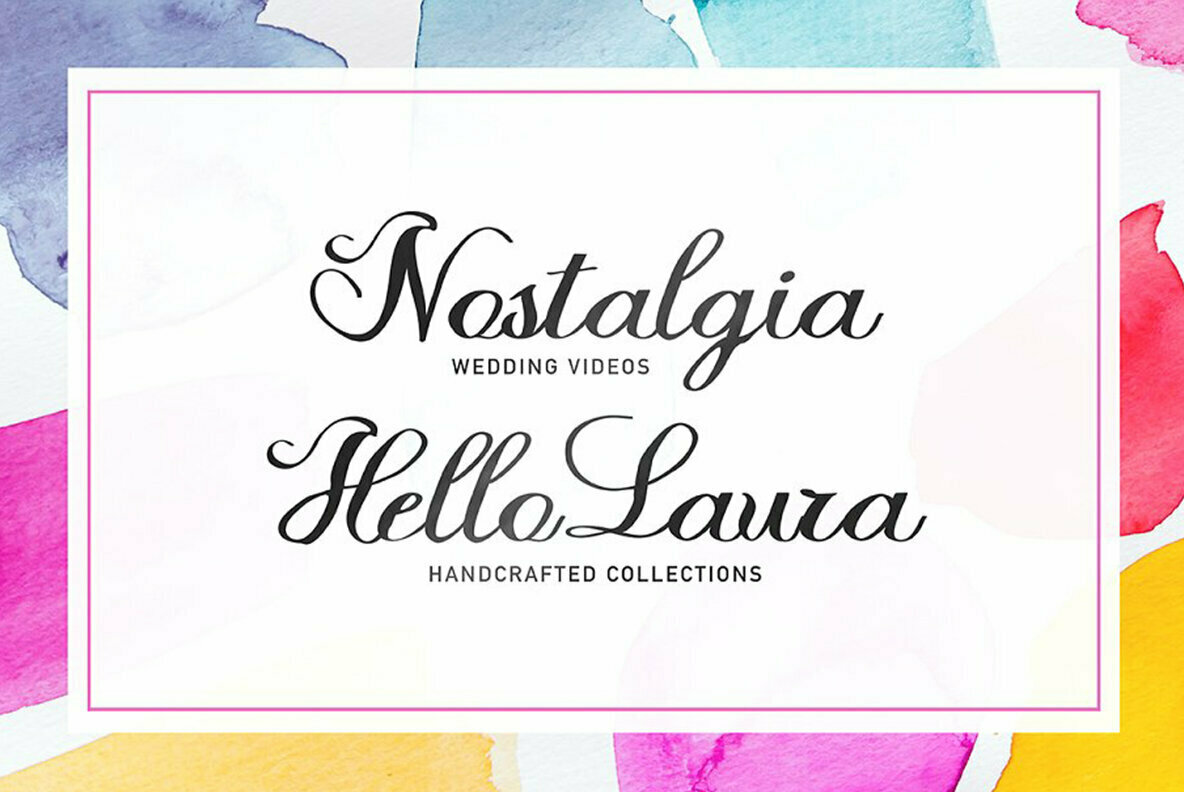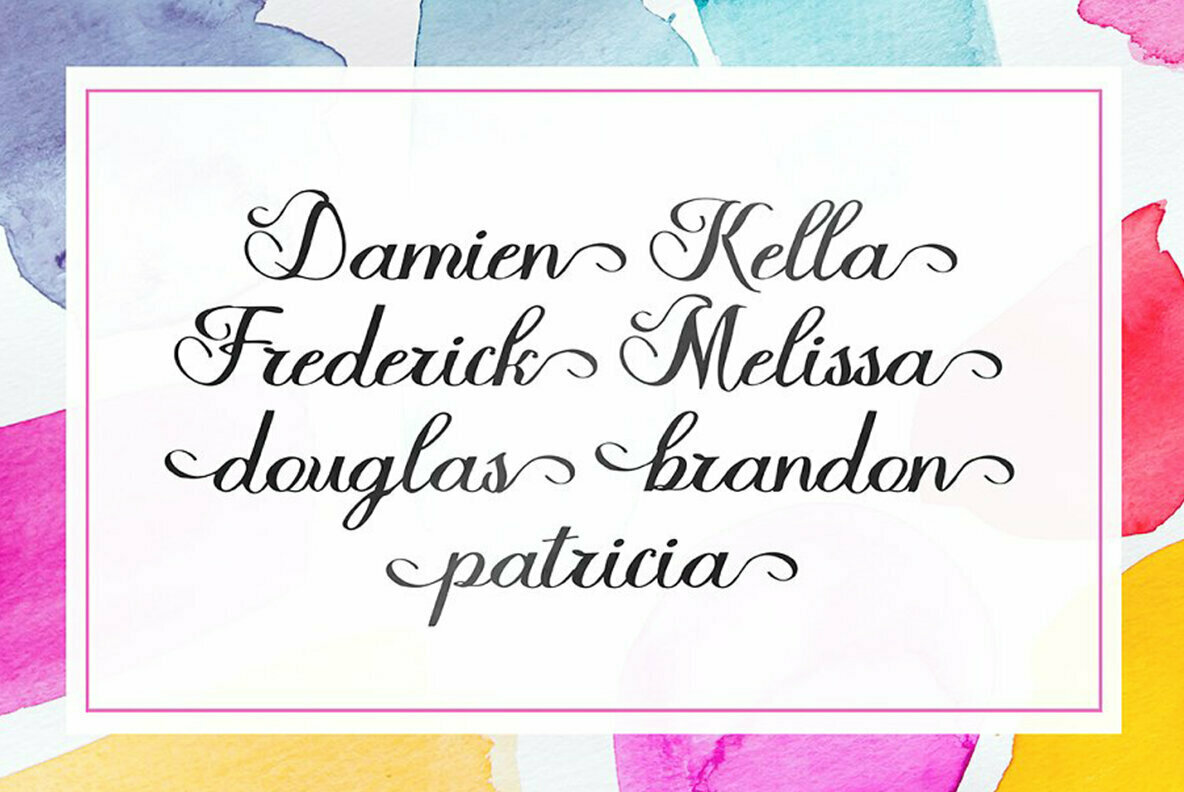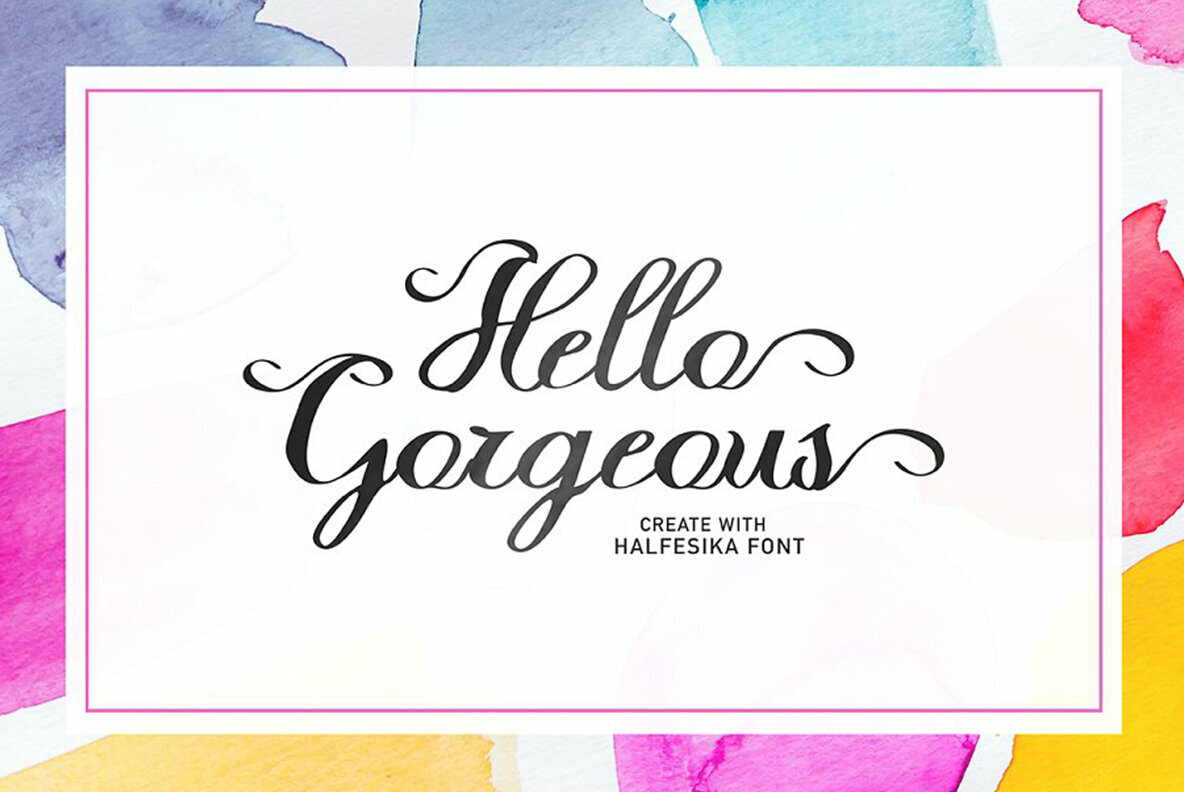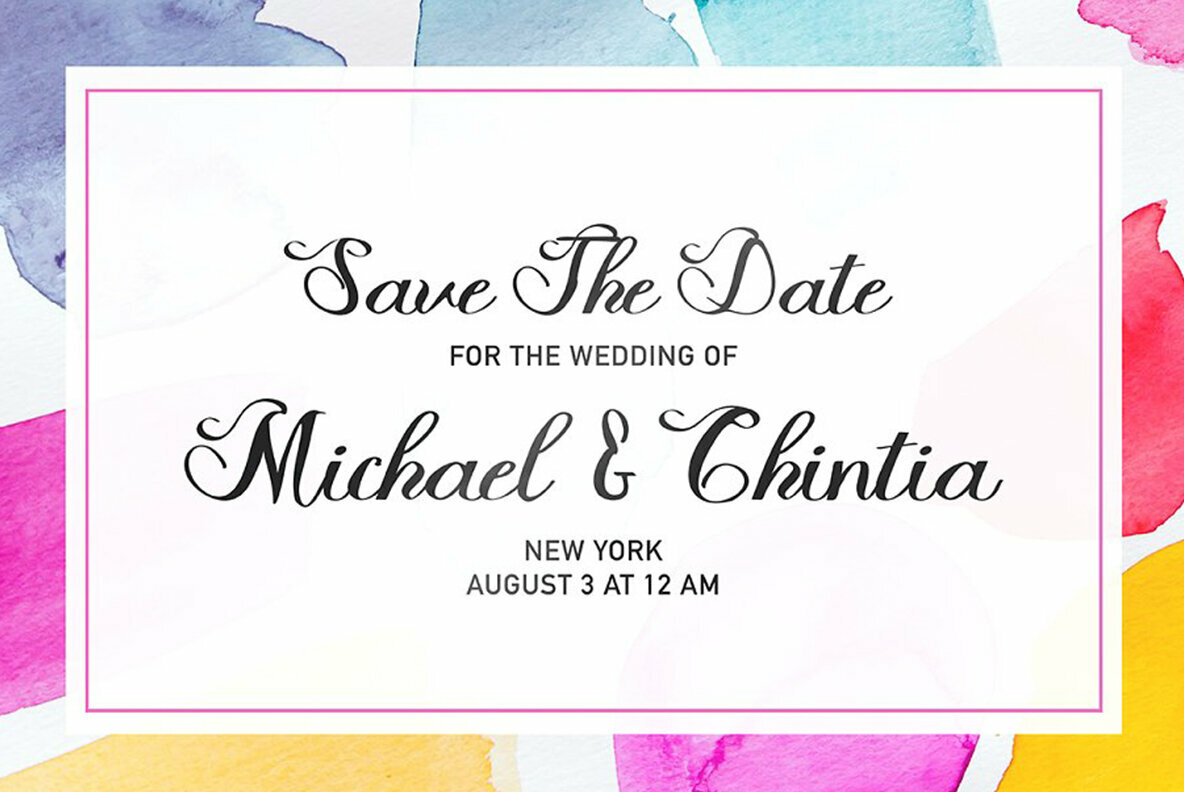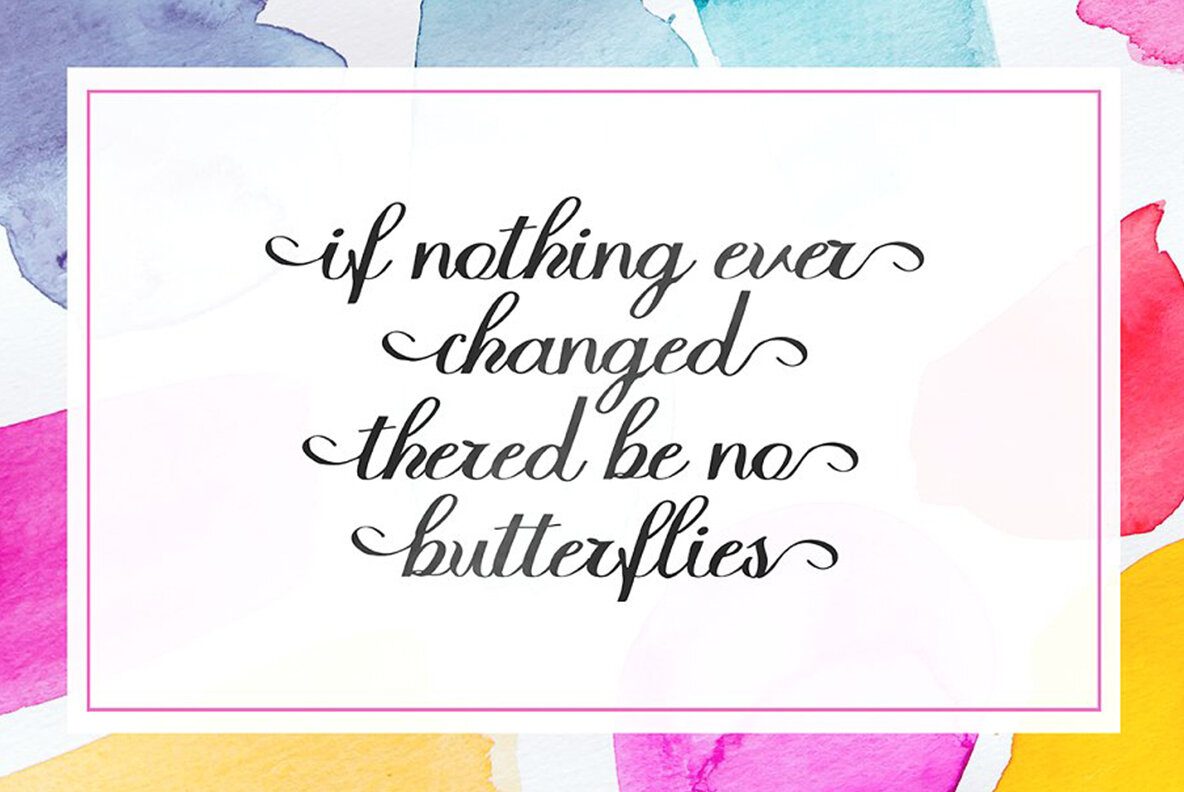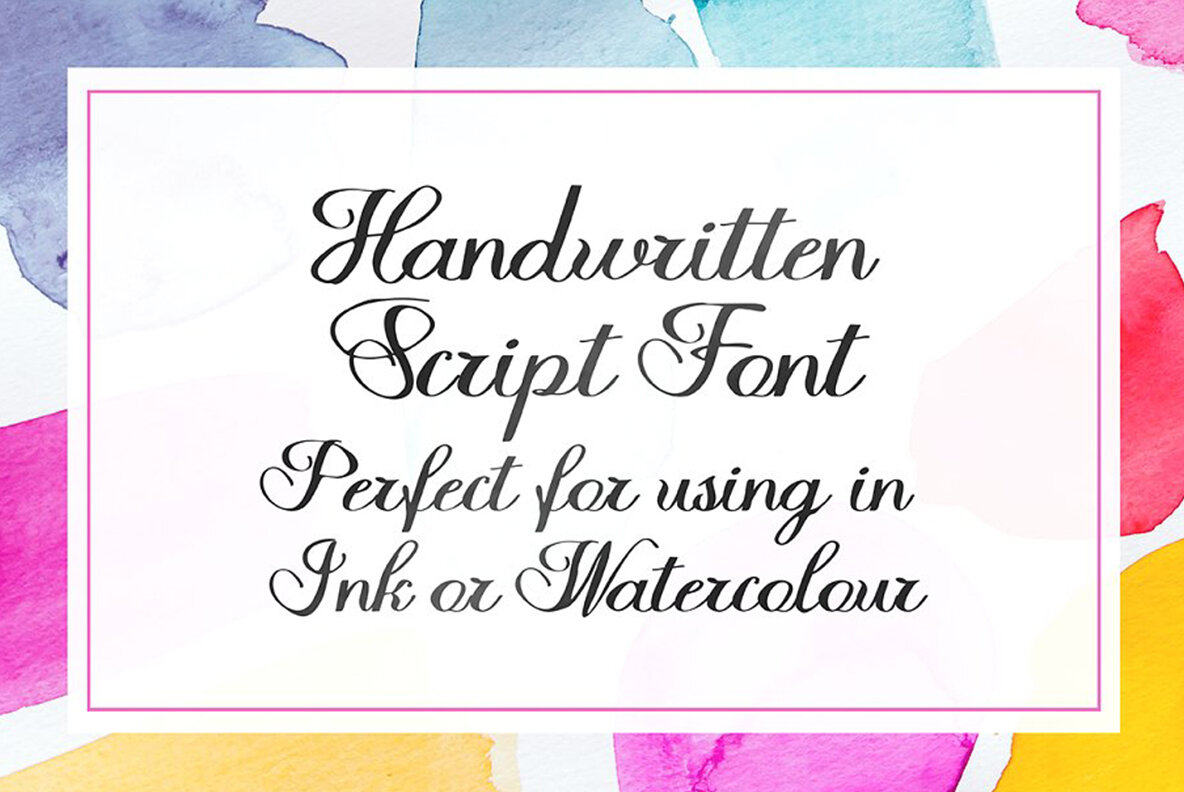
Halfesika Script Font
Halfesika Script
Halfesika is a handwritten script font, rough edges, trendy look and harmony. Halfesika looks lovely on wedding invitations, thank you cards, quotes, greeting cards, logos, business cards and more. Perfect for using in ink or watercolour. Features alternate character, including initial and terminal letters, ligatures and multiple language support.